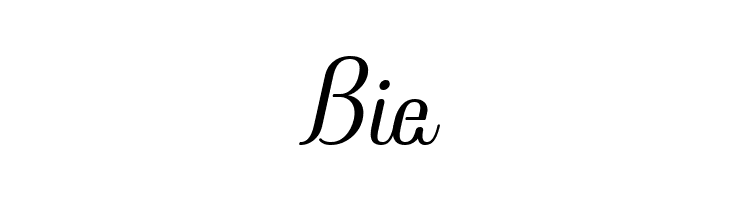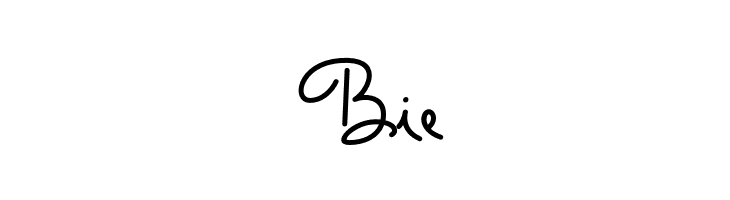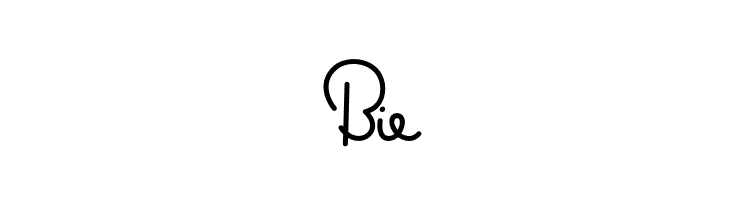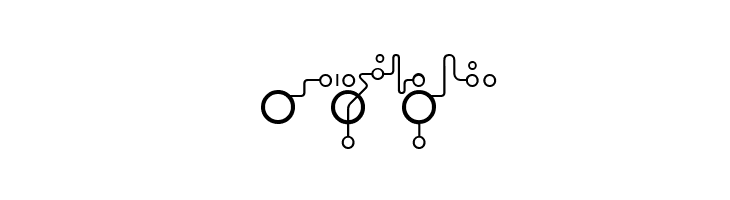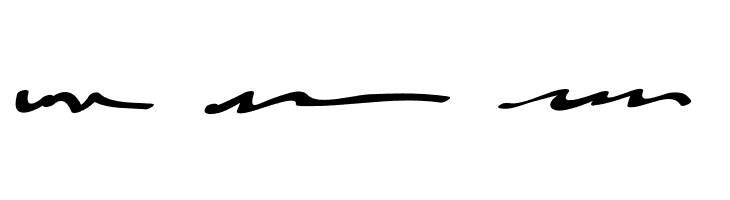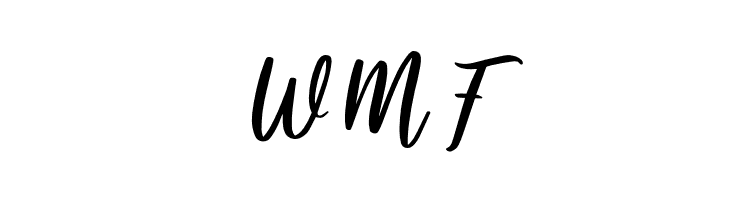
( Fonts by Måns Grebäck )
A bold, elegant script font with dynamic curves and smooth connections.
( Fonts by Ferdiansyah )
A playful and elegant script font with flowing, interconnected letterforms.
( Fonts by Måns Grebäck )
An elegant script font with flowing, interconnected letters and decorative flourishes.
An elegant, cursive script font with flowing, connected strokes.
( Fonts by Måns Grebäck )
A graceful script font with flowing, connected strokes and a sophisticated style.
( Fonts by Ferry Hadriyan )
A flowing, cursive script font with elegant, interconnected strokes.
( Fonts by SiwoxS )
An elegant script font with flowing, interconnected letters and high contrast strokes.
A bold, modern script font with interconnected characters and a dynamic flow.
A modern, interconnected script font with a chain-like appearance.
( Fonts by Måns Grebäck )
A graceful script font with fluid, interconnected letters and elegant flourishes.
( Fonts by dcoxy )
A flowing, cursive script font with elegant, interconnected letters.
( Fonts by Måns Grebäck )
A graceful script font with flowing, interconnected letters and elegant flourishes.
( Fonts by Måns Grebäck )
A bold, cursive font with interconnected characters and a strong visual impact.
( Fonts by Billy Argel )
A flowing, cursive font with elegant curves and smooth connections.
( Fonts by easetype )
A dynamic and expressive cursive script font with elegant, flowing connections.
An elegant script font with flowing, interconnected letters and dynamic stroke contrast.
A bold, brush-like script font with interconnected letters and a dynamic style.
A cursive, handwritten-style font with fluid, connected letters and dynamic stroke variations.
A modern, slanted script font with connected characters and consistent stroke weight.
( Fonts by Katsia Jazwinska )
A bold, expressive handwritten font with fluid, connected strokes.
( Fonts by artimasa studio )
A bold, cursive font with interconnected, flowing characters.
( Fonts by aiyari )
A bold, expressive script font with dynamic curves and interconnected letters.
( Fonts by Ryan Prasetya )
An elegant and flowing script font with dynamic strokes and interconnected letters.